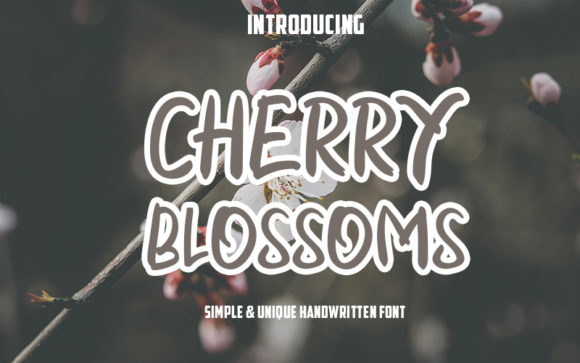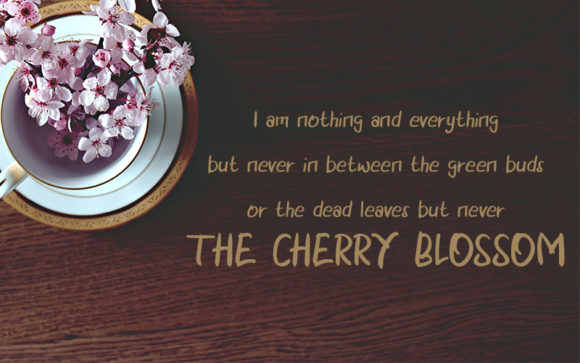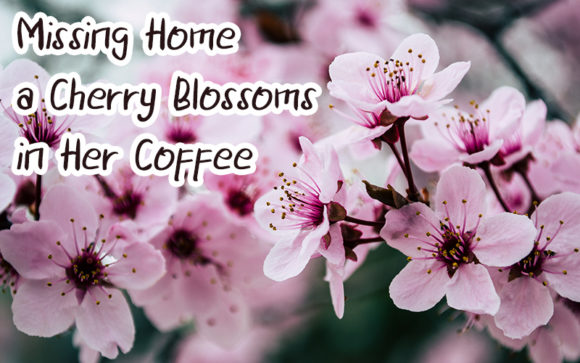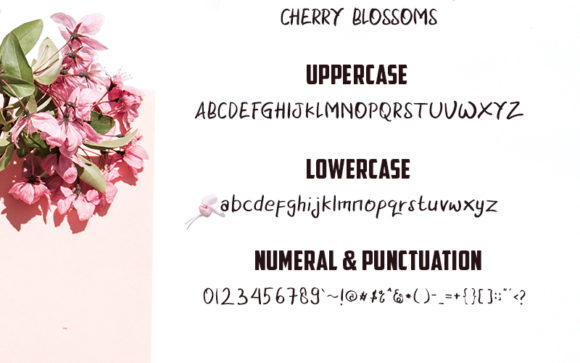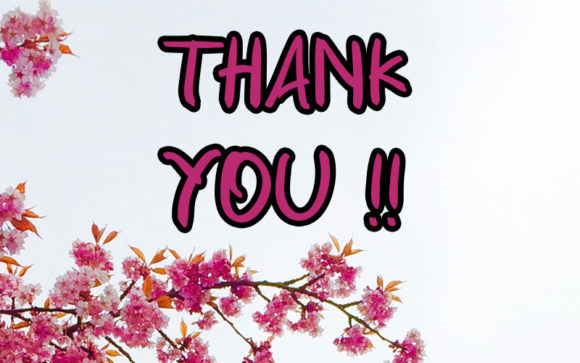
Cherry Blossoms Font
About Cherry Blossoms Font
Cherry Blossoms is a modern and unique handwritten font. Get creative with its playfulness, and use it to brighten up any crafting project!